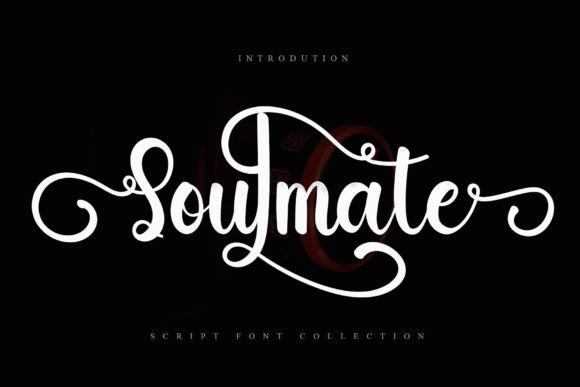
“Soulmate” is a modern luxury handwritten font that exudes elegance and sophistication. Its refined and stylish design makes it a versatile choice for various design projects. Whether you’re working on quotes, logos, blog headers, posters, branding, lettering, invitations, stationery, or any other creative endeavor, “Soulmate” elevates the visual appeal of your designs and captures attention with its luxurious aesthetic.
The font’s modern luxury style adds a touch of class and exclusivity to your projects. Its smooth and flowing characters create a sense of refinement and elegance, making your text appear effortlessly chic. Whether you’re aiming for a high-end and polished look or a more upscale and glamorous vibe, “Soulmate” adapts to different design contexts, enhancing the overall aesthetics of your creations.
One of the standout features of “Soulmate” is its ability to command attention. Its luxury handwritten design conveys a sense of sophistication and allure, making your designs visually captivating and memorable. The font’s readability and luxurious appeal ensure that your message is communicated effectively while leaving a lasting impression on your audience.
By incorporating “Soulmate” into your projects, you’re infusing them with a sense of luxury and refinement. Its modern luxury handwritten style adds a touch of exclusivity, making your designs visually appealing and unforgettable. Whether you’re a graphic designer, a branding specialist, or an individual working on personal projects, “Soulmate” provides you with a luxurious and captivating font choice to enhance your creative endeavors and create designs that radiate elegance and allure.